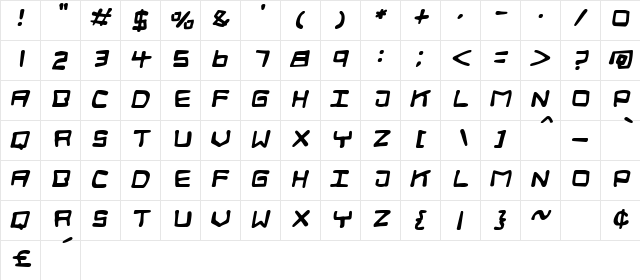
Digital Squiggle Italic
Design Context for Digital Squiggle Typeface
Digital Squiggle channels digital-age aesthetics through its sharp, structured letterforms — ideal for brands that want to signal innovation. Its italic angle brings a sense of urgency and motion to the letterforms.
Pro Tip: Use Digital Squiggle in combination with a neutral sans for body text. Let it define the brand voice in headlines while keeping reading comfortable elsewhere.